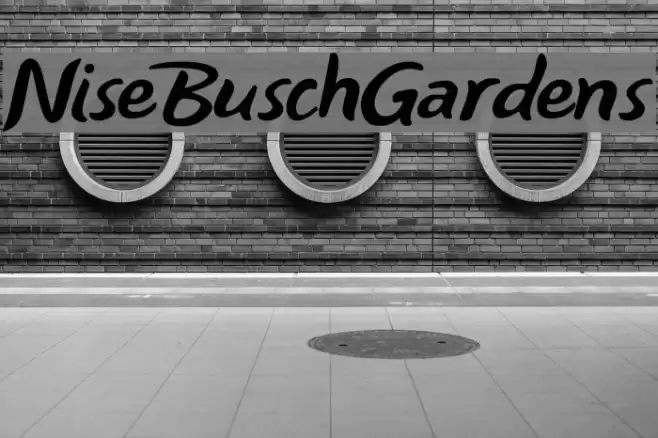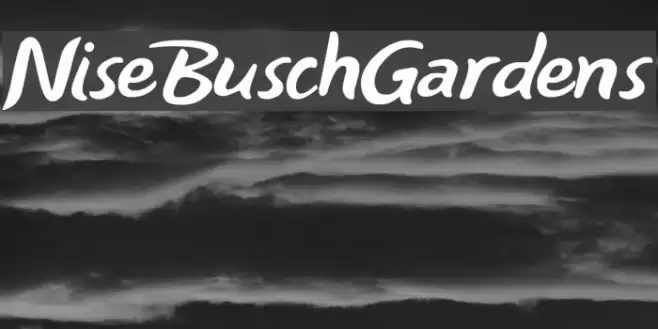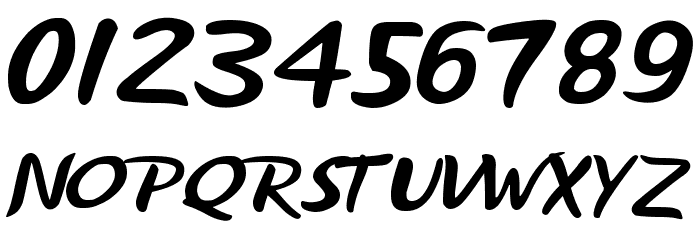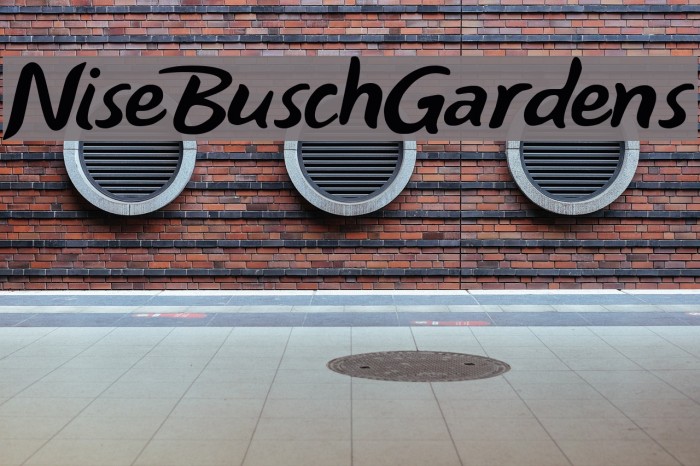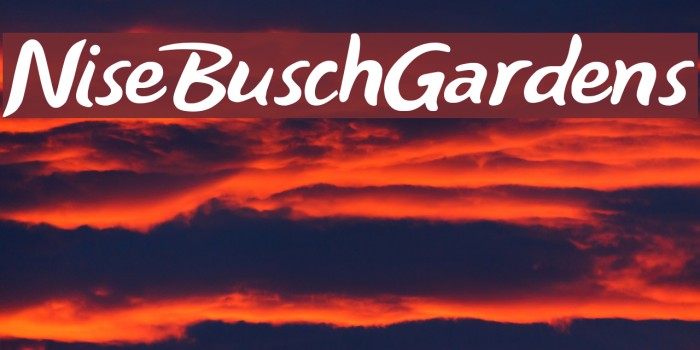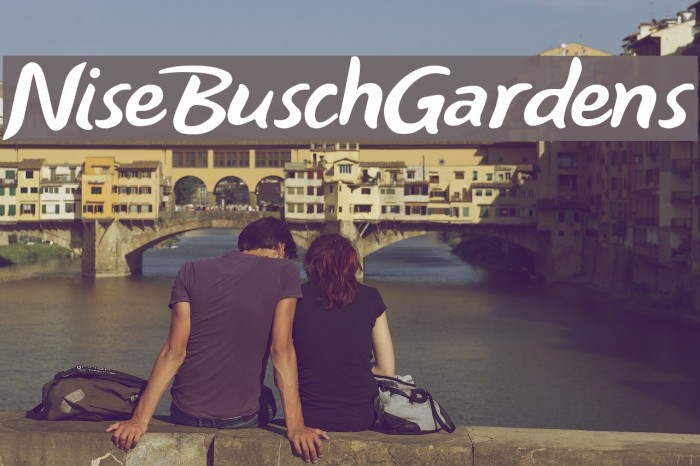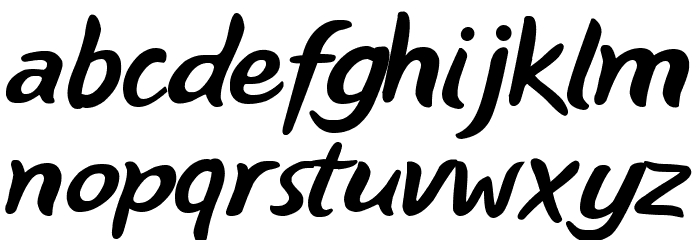
NiseBuschGardens Font
NiseBuschGardens Description
This font features a dynamic and flowing script style, characterized by its smooth, cursive strokes that convey a sense of elegance and fluidity. The letters are interconnected, creating a seamless and harmonious appearance. The uppercase letters are bold and prominent, while the lowercase letters maintain a consistent flow, enhancing readability. The numerals are distinct yet cohesive with the overall style, and the special characters blend seamlessly with the alphabet. This font exudes a sense of sophistication and is ideal for projects that require a touch of class and elegance.
A dynamic, flowing script font with elegant cursive strokes from Uncategorized fonts.
- Proposed Projects: Ideal for wedding invitations, elegant branding, personal stationery, and artistic projects.
- Overall Style: Elegant, Sophisticated
- Use Case: Logos, Invitations, Artistic projects